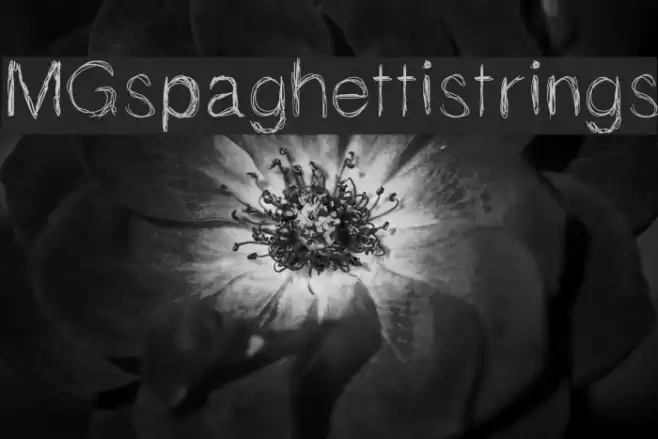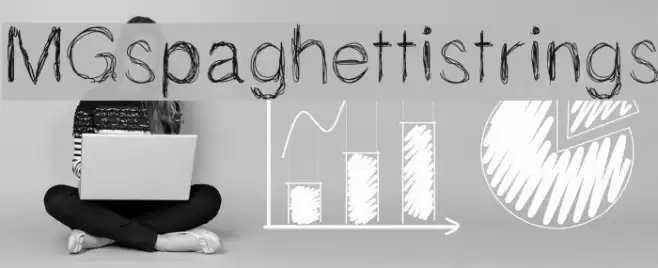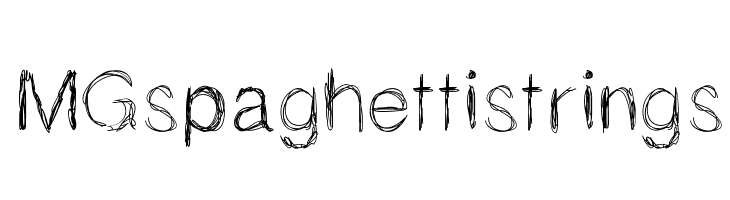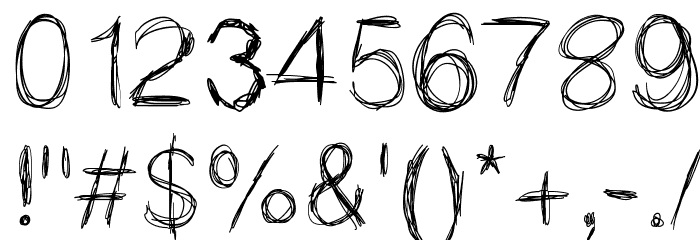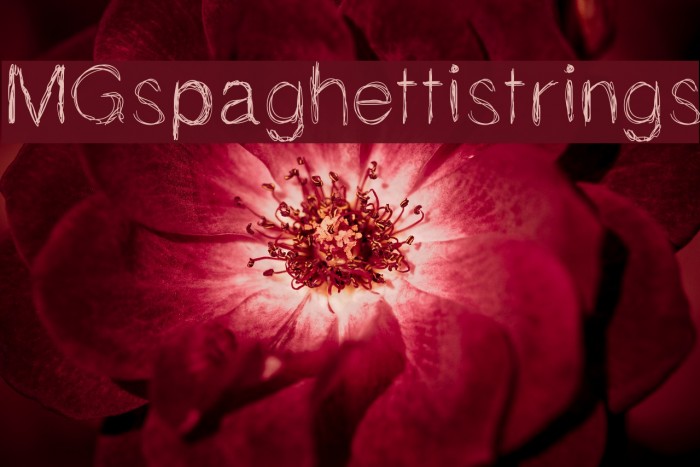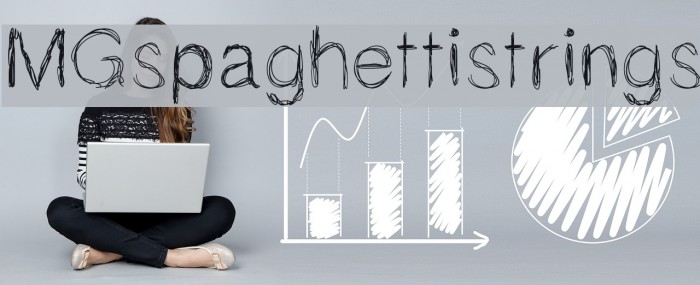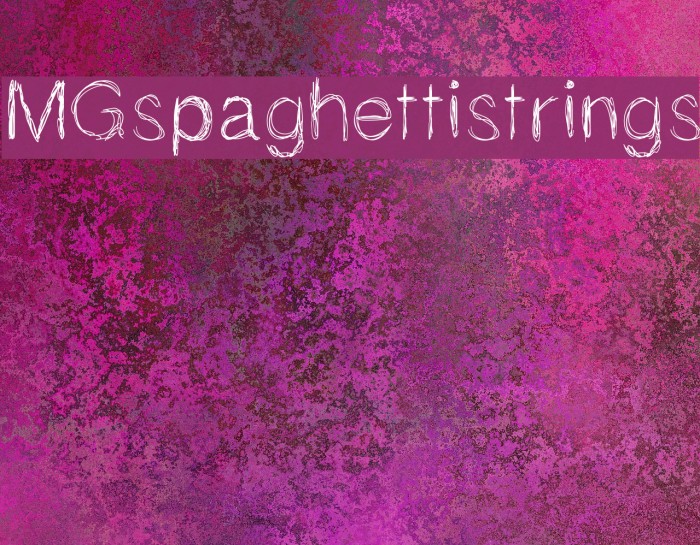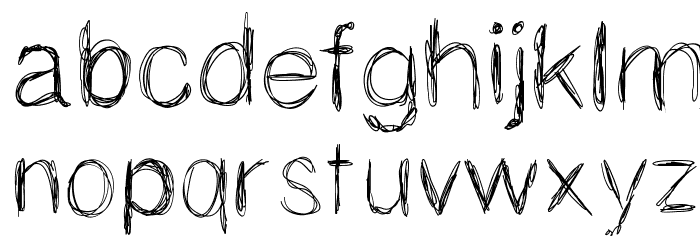
MGspaghettistrings Font
MGspaghettistrings Description
This font exhibits a playful and chaotic style, reminiscent of hand-drawn sketches with a whimsical touch. The characters are composed of overlapping strokes that create a sense of movement and energy. The irregular lines and varying thicknesses give it a dynamic and artistic appearance, making it stand out with its unique, almost scribbled look. Each letter maintains a consistent height, but the strokes vary in width, adding to the font's quirky charm. The numbers and special characters follow the same lively design, ensuring a cohesive visual experience across all glyphs.
A playful, hand-drawn font with chaotic, overlapping strokes from Uncategorized fonts.
- Proposed Projects: Ideal for creative projects such as children's book covers, artistic posters, or branding for playful and unconventional products.
- Overall Style: Artistic and Whimsical
- Use Case: Headlines, Posters, Creative Branding